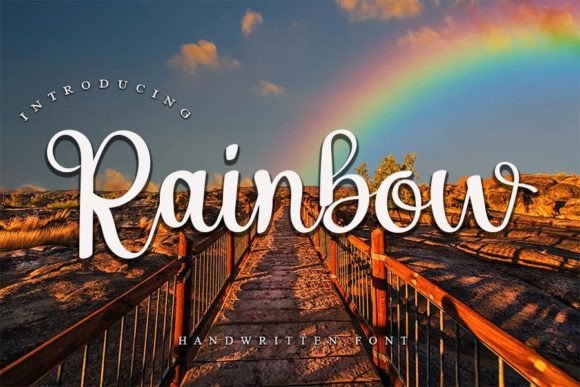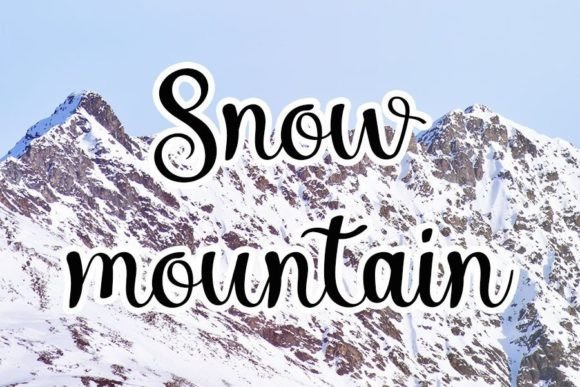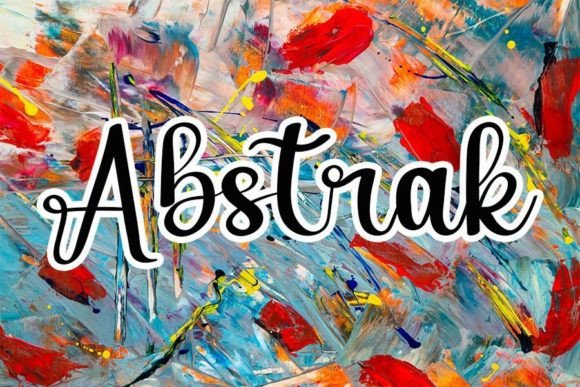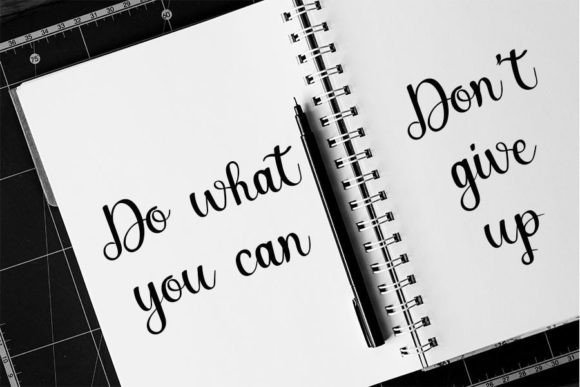
About Rainbow Font
Rainbow is a warm and inviting handwritten font, meticulously crafted to earn its place as a beloved favorite in the realm of typography. By seamlessly blending classy calligraphic influences with a contemporary and fresh feel, this font adds a unique character to your creative projects. Including Rainbow in your designs provides an opportunity to infuse them with a distinctive charm, elevating their overall aesthetic and making them truly outstanding.
The friendly and approachable nature of Rainbow stems from its handwritten style, contributing a personal touch to your creations. Its harmonious balance between classic calligraphy and modern elements ensures a timeless yet relevant appearance, making it well-suited for a diverse range of applications.
Whether you’re working on invitations, branding, logos, or any creative endeavor, Rainbow proves to be an excellent choice. Its friendly and classy demeanor adds sophistication to your projects, setting them apart and making them truly memorable.
Invitations take on a delightful quality with the addition of Rainbow, as its calligraphic influences convey a sense of elegance and celebration. The font seamlessly integrates into branding projects, allowing your identity to radiate a unique personality that resonates with your audience.
Logos crafted with Rainbow become distinctive and memorable, thanks to its carefully designed characters that capture attention and leave a lasting impression. The font’s versatility extends to various creative applications, making it a valuable asset in your design toolkit.
In essence, Rainbow is more than just a font; it’s a design companion that brings a perfect blend of friendliness, class, and contemporary style to your creative projects. Its carefully considered design ensures that it remains a true favorite, standing the test of time while making your work truly outstanding. Embrace Rainbow, and let its charm enhance the beauty of your designs, making them truly remarkable in the eyes of your audience.